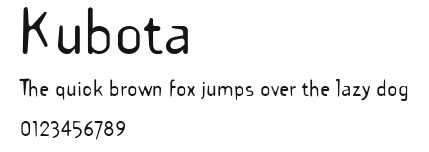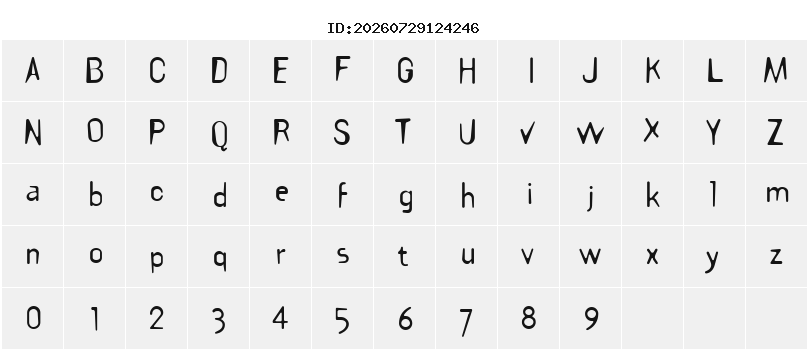
Kubota Preview
• Font Name: Kubota
About Kubota.ttf
Kubota.ttf is a modern, elegant sans-serif font designed for ultimate readability and visual harmony. Perfect for branding, headlines, web design, and print materials.